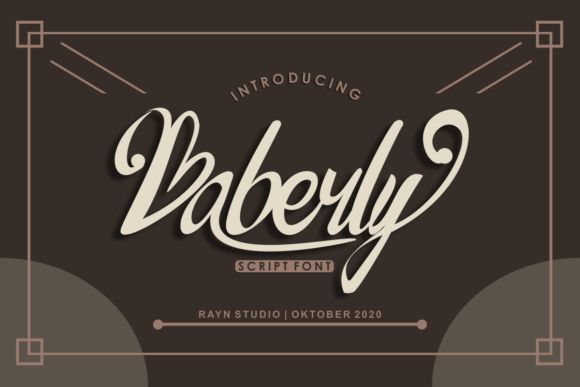
The Timeless Charm of Baberly Font: A Designer’s Delight
I’ll never forget the moment I stumbled upon Baberly Font while working on a vintage-themed project for a client. I had been searching for the perfect handwritten font to give my design a personal touch, but nothing seemed quite right. That was until I laid eyes on Baberly – its classic, elegant strokes instantly captivated me. I knew right then and there that I had found the one. In this article, I’ll share my love for Baberly Font, its features, and how to make the most of it in your designs.
An Honest Review of Baberly Font
What I Love About Baberly Font
- ✨ Classic and Vintage Aesthetic: Baberly Font boasts a timeless, elegant look that instantly elevates any project.
- ✅ Highly Legible: Despite its ornate feel, Baberly is surprisingly easy to read, making it perfect for body text and headlines.
- 💫 Versatile: From wedding invitations to branding and packaging, Baberly’s versatility knows no bounds.
- 🎨 Extensive Glyphs and OpenType Features: With a wide range of glyphs and OpenType features, you can customize your text to fit your project’s unique style.
While Baberly Font is a stunning addition to any design project, there are a few things to keep in mind:
- 🤔 Limited Use in Very Modern or Minimalist Designs: Baberly’s ornate nature might not be the best fit for very modern or minimalist projects.
- ⚠️ Requires Attention to Kerning: As with any script font, kerning can be a bit tricky. Make sure to adjust the spacing between letters for optimal results.
The Story Behind Baberly Font
Baberly Font was inspired by classic handwritten scripts from the early 20th century. Its creator aimed to capture the essence of timeless elegance and versatility, making it suitable for a wide range of design applications. While the exact story behind Baberly Font may be shrouded in mystery, its impact on the design world is undeniable.
Q: What type of projects is Baberly Font best suited for?
A: Baberly Font is ideal for projects that require a touch of elegance and sophistication, such as wedding invitations, branding, packaging, and editorial design.
Q: Is Baberly Font difficult to read?
A: Despite its ornate feel, Baberly Font is surprisingly easy to read, making it perfect for body text and headlines.